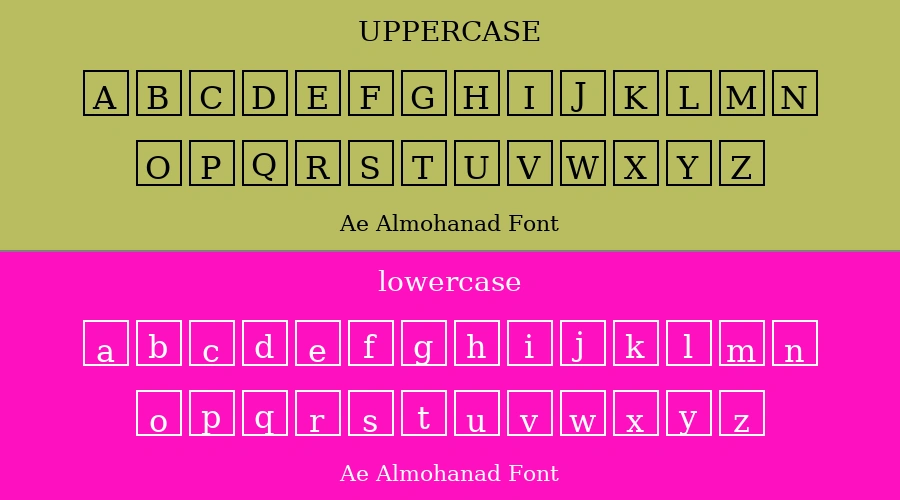
About Ae Almohanad Font
When typographic excellence matters most, Ae Almohanad Font delivers through its thoughtful blend of graceful serifs and technical excellence. Specially crafted for mobile applications, it offers the professionalism and creative potential required for sophisticated design work. Every detail serves a purpose.
The character set showcases thoughtful details like distinctive details alongside functional mathematical symbols. This proves especially valuable in instruction steps, where small cap rendering directly influences results. Particular attention was paid to terminal style and professional recognition during development.